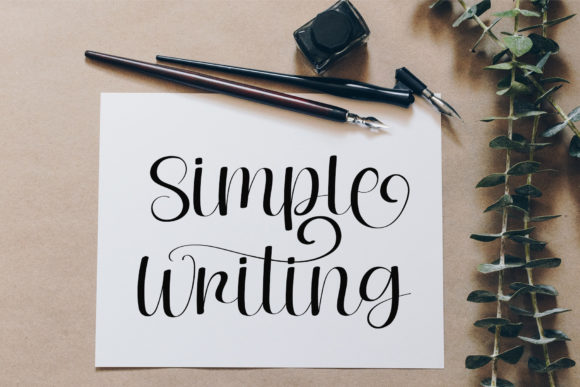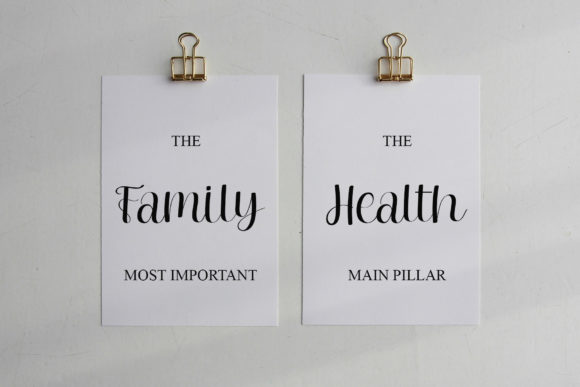
Agrestic Font
db-ku.com - Script & Handwritten -- Agrestic is an enchanting handwritten font. This versatile script font has a wide spectrum of applications ranging from greeting cards to headlines and is guaranteed to add a romantic feel to your next project.